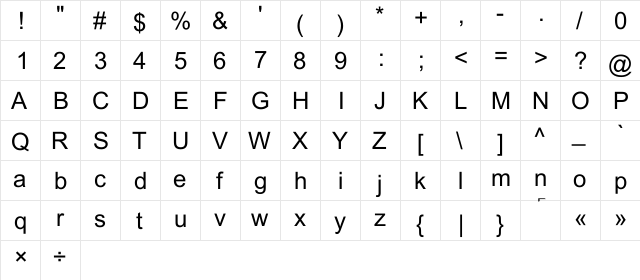
Mangrio_Aziz_Hizbullah_junejo_S Regular
| Designer | Abdul-Aziz Mangrio |
Design Context for Mangrio_Aziz_Hizbullah_junejo_S Typeface
Mangrio_Aziz_Hizbullah_junejo_S is a composed and adaptable typeface that performs quietly and consistently across a wide range of design contexts.
Pro Tip: Use Mangrio_Aziz_Hizbullah_junejo_S in both headline and body roles to test its range before committing to a single application.